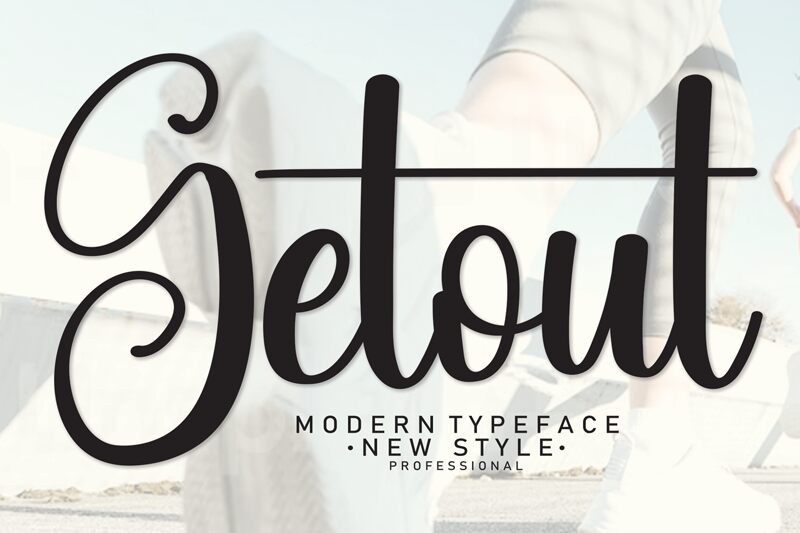
Getout
Getout, a creation by Scratchones, embodies the charm of personal touch with its handwritten style. Its aesthetic weaves together a friendly warmth and approachable elegance, suggesting the care of a handcrafted note. The fluid strokes and variable thickness of the letters evoke a sense of creativity and spontaneity, making it an inviting choice for projects that require a personal, intimate feel.
Its application shines in contexts that benefit from an organic, human element—think bespoke invitations, heartfelt branding, or artisanal product packaging. Getout's distinctive style would also complement editorial content in lifestyle magazines or blogs where personality is key to connecting with readers. This font isn't just about writing; it's about conveying emotion and character through every curve and line.